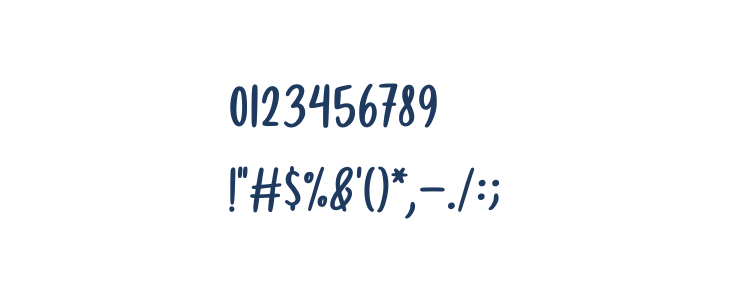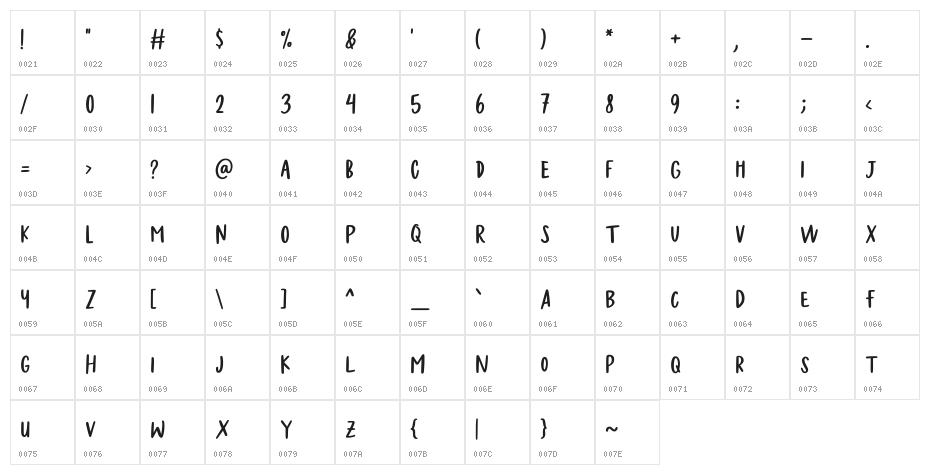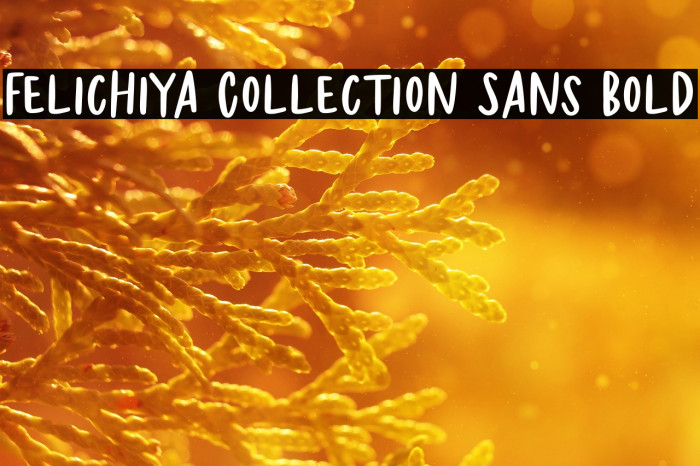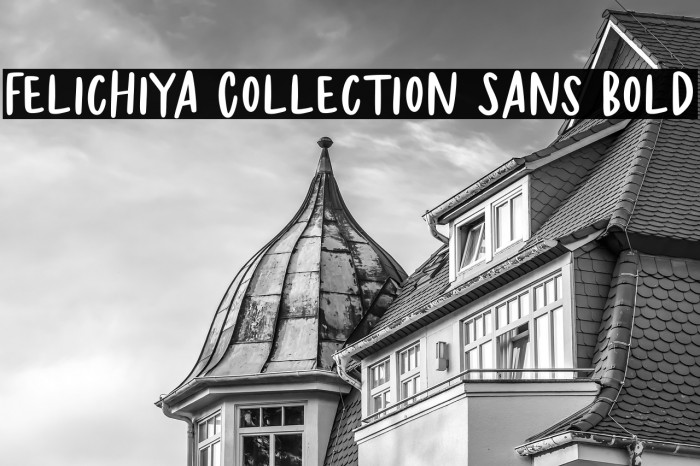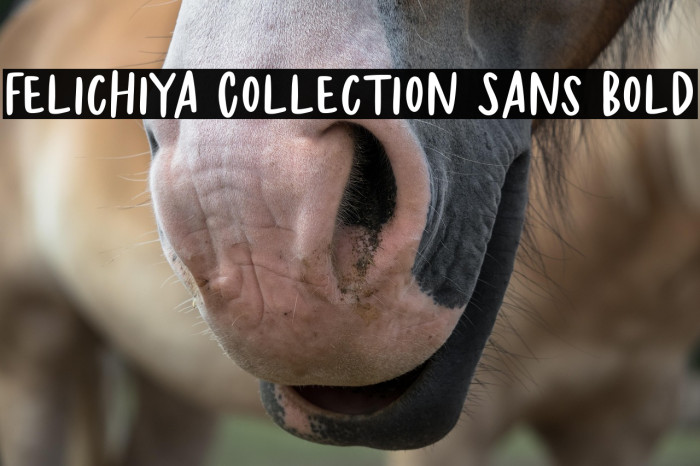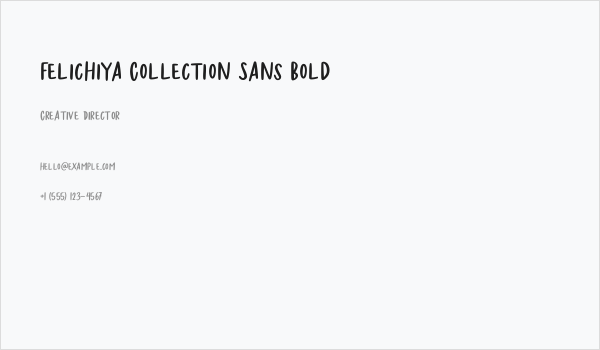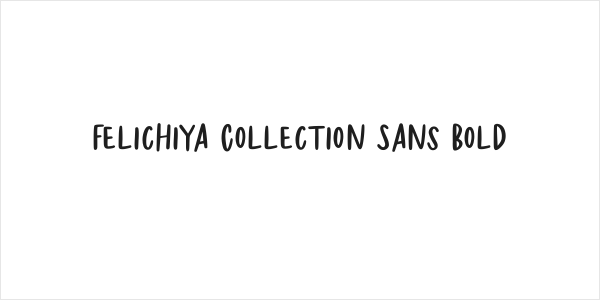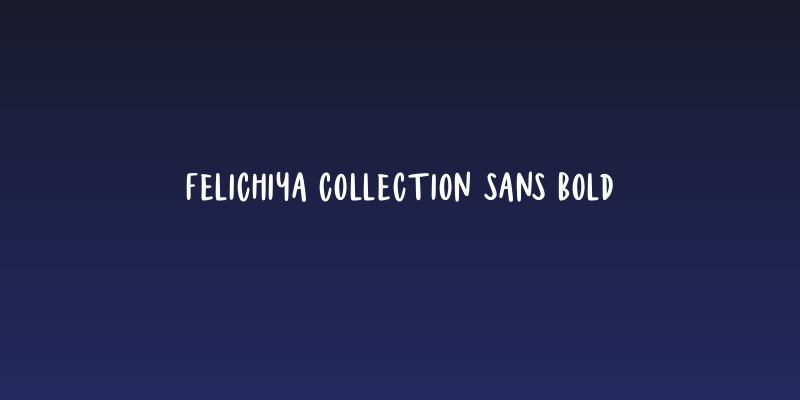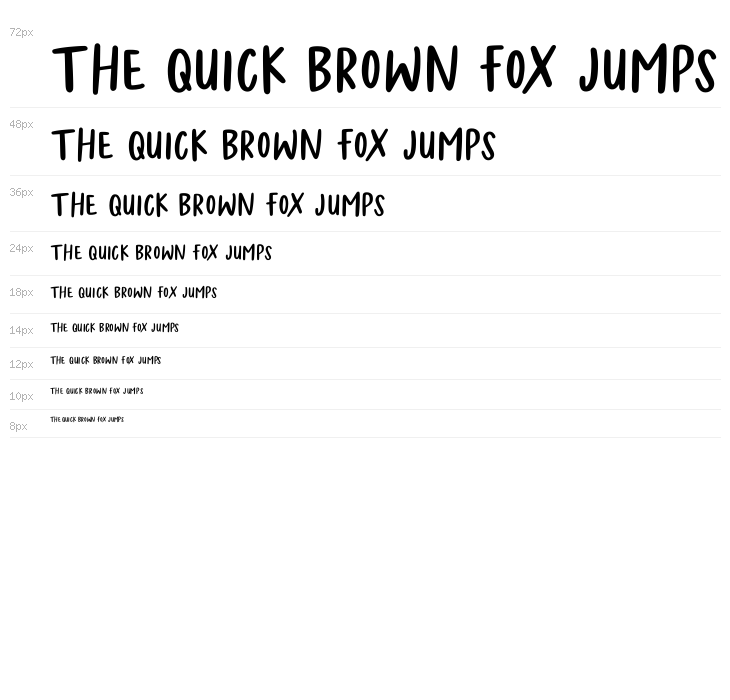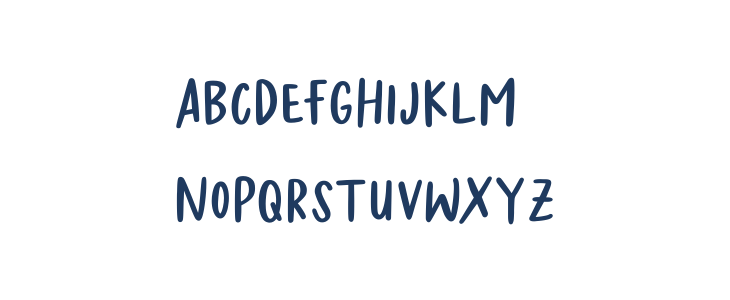
Felichiya Collection Sans Bold Font
Felichiya Collection Sans Bold Description
This font features a playful and bold sans-serif style with a handwritten touch. The characters are rounded and slightly irregular, giving it a friendly and approachable appearance. The uppercase and lowercase letters maintain a consistent weight, while the numerals and special characters complement the overall design. The font's boldness makes it stand out, yet its informal style keeps it versatile for various creative applications. The strokes are uniform, with a medium contrast that adds to its legibility and charm.
| Overall Style | Playful, Casual |
| Proposed Projects | Ideal for children's books, playful branding, social media graphics, and casual invitations. |